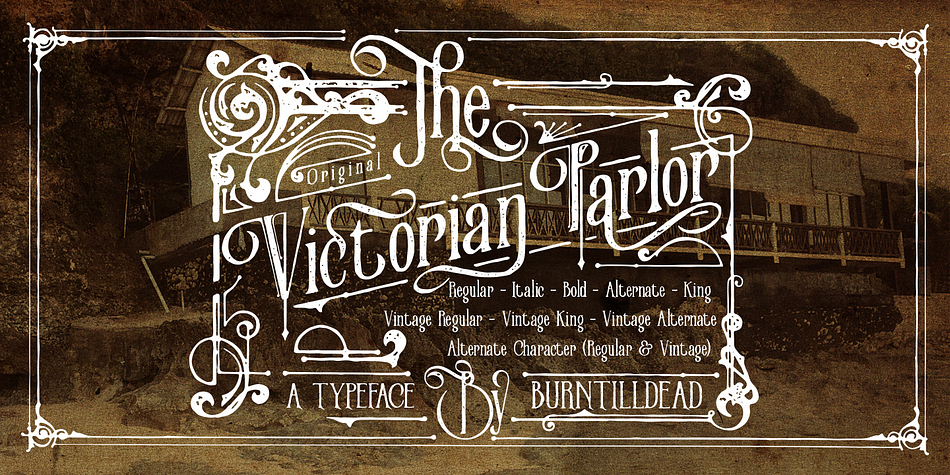
Victorian Parlor King
Victorian Parlor is a dingbat and historical font family. This typeface has eleven styles and was published by Burntilldead.
Victorian Parlor is a traditional victorian decoration typeface based on clean looks and ink textured. Containing 350 glyphs of clean looks (regular font) and 350 glyphs of Ink textured (vintage font). Vintage font painted manually one by one with very detail and consistency
This font comes with upper case, lower case, alternate characters and multilingual support.